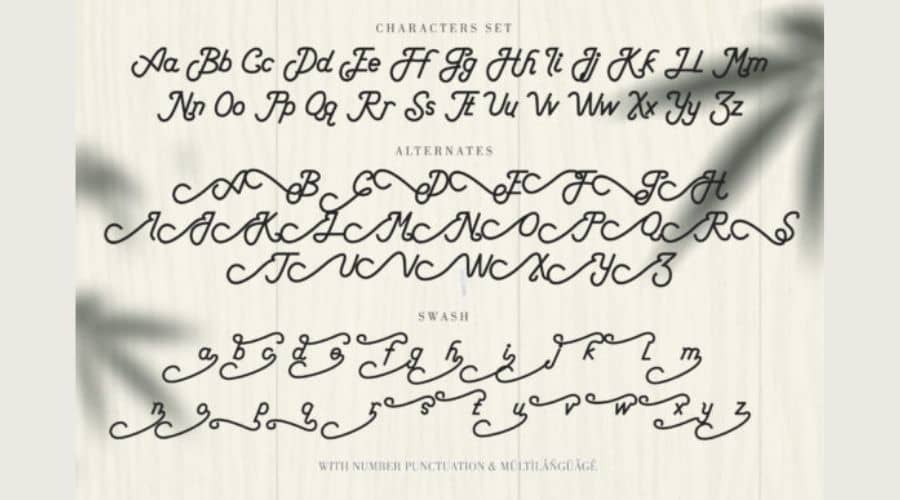
Anderson Silva Font
The gorgeous Anderson Silva Font is now available. It’s a Script font with full alternates that looks authentic. It also has features like upper and lowercase. Letterara created Anderson Silva on December 24, 2019. Regular is the subfamily. Anderson Silva is the ideal typeface for all of your creative projects. The Font is available in TTF and OTF font types. The Font was created to work well in a variety of settings, including wedding invitations, website logos, Instagram posts, and much more. The Version is Version 1.00; January 3, 2020. The family of this Font is Anderson Silva. The Font is categorized under Script and Monoline. Thomas aradea is the designer of this Font. Anderson Silva is a monoline script with a refined and elegant appearance. Anderson Silva offers two different styles as well as a family bundle.
Anderson Silva is a lively font that looks great in autumn-themed projects. Its handwritten approach gives your design a one-of-a-kind feel! Anderson Silva may be used to make unique designs, covers, shop and store names, and logos. Anderson Silva is also ideal for branding projects, homeware designs, product packaging, and as a classy text overlay on any background image. It’ll offer a delightful finishing touch to any DIY creation!
| Name | Anderson Silva Font |
| Style | Script |
| Designer | Letterara |